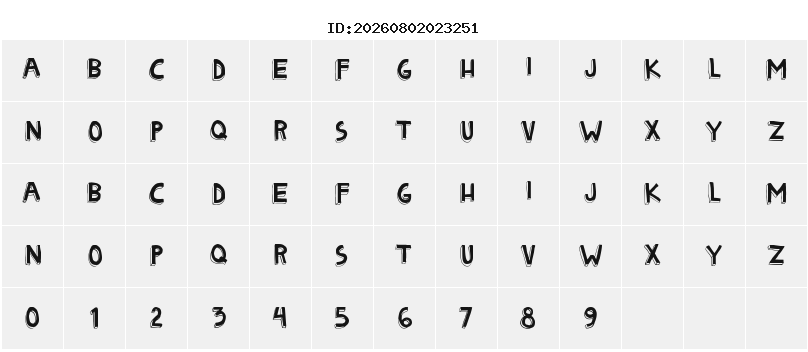
Matryoshka Preview
• Font Name: Matryoshka
• Full Font Name: Matryoshka
• Version: Version 1.00 August 28, 2011, initial release
• Designer: Denise Bentulan
• Manufacturer: Denise Bentulan
About Matryoshka.ttf
Matryoshka.ttf is a modern, elegant sans-serif font designed for ultimate readability and visual harmony. Perfect for branding, headlines, web design, and print materials.